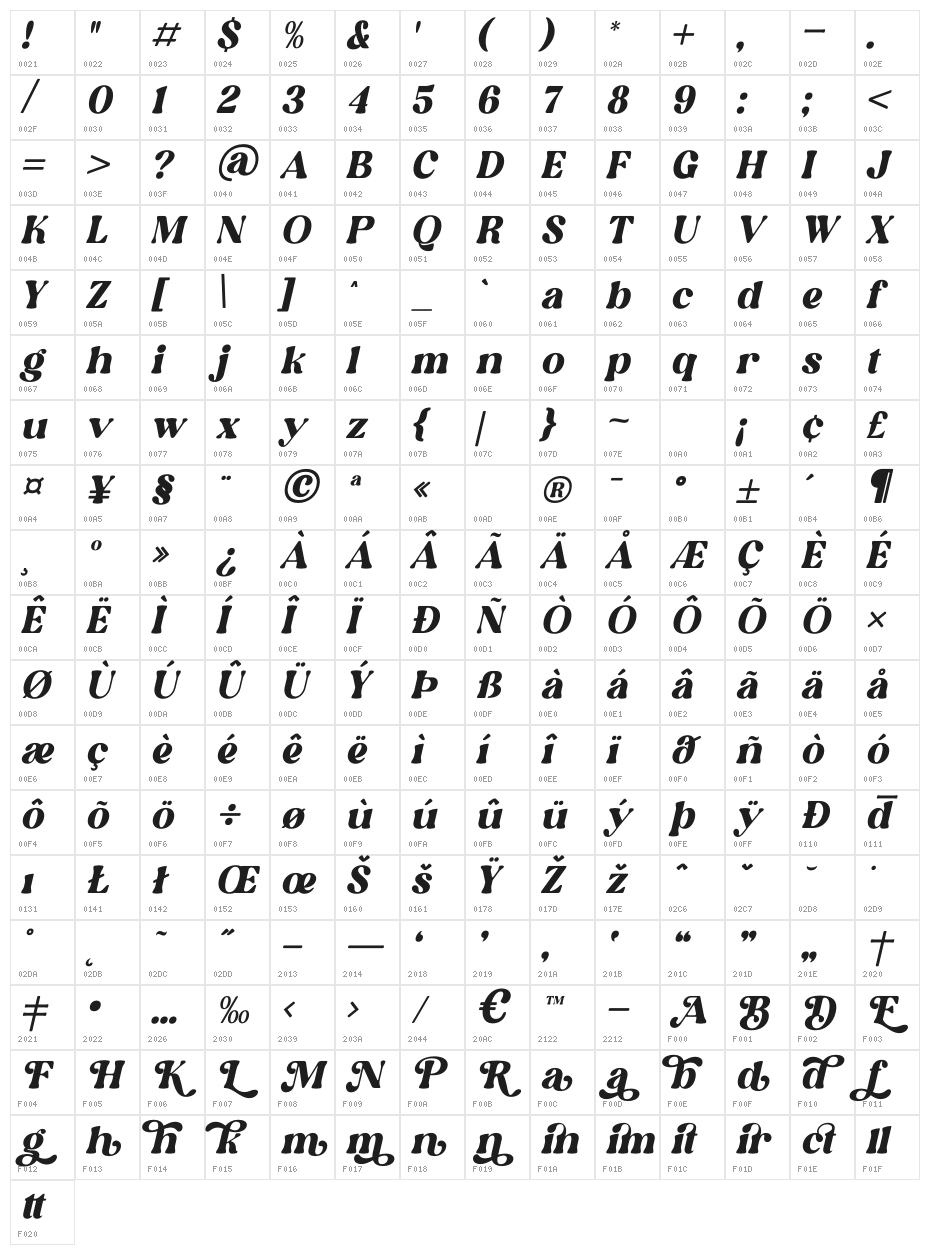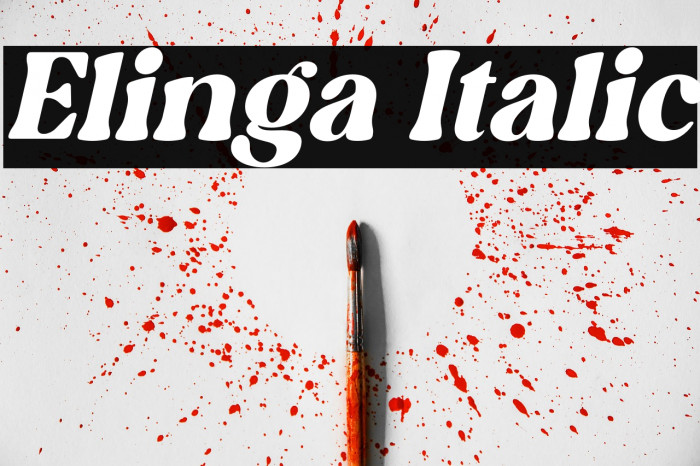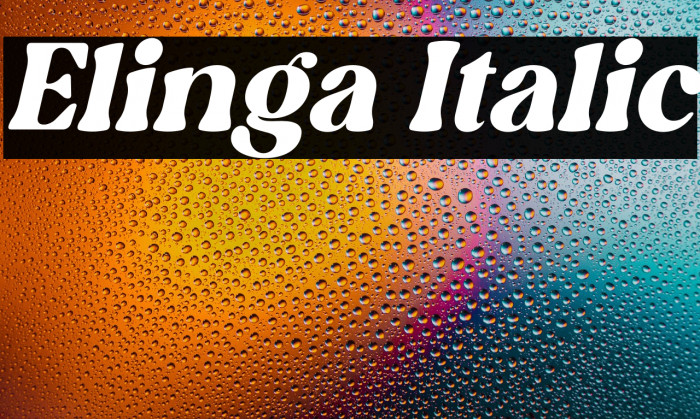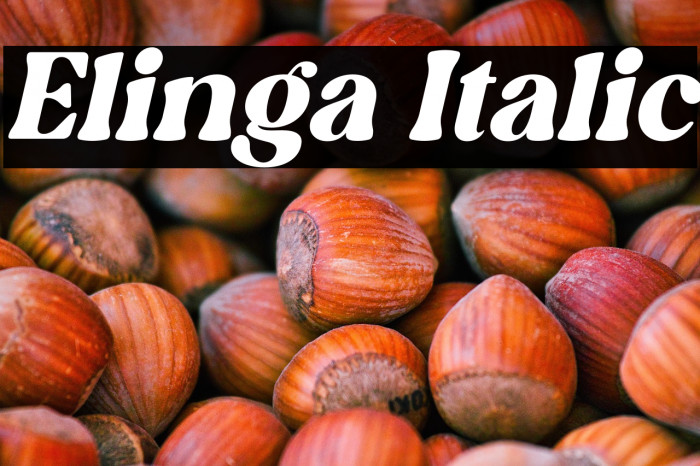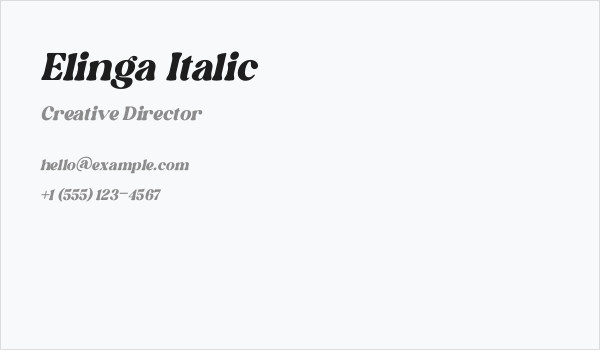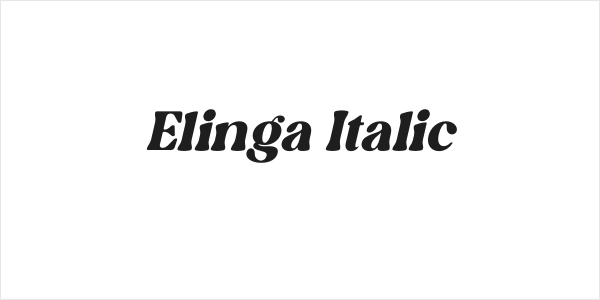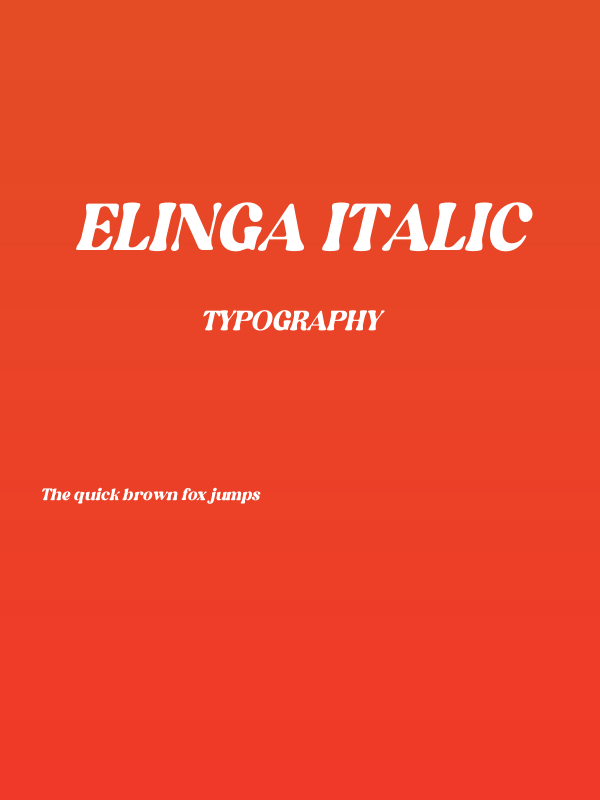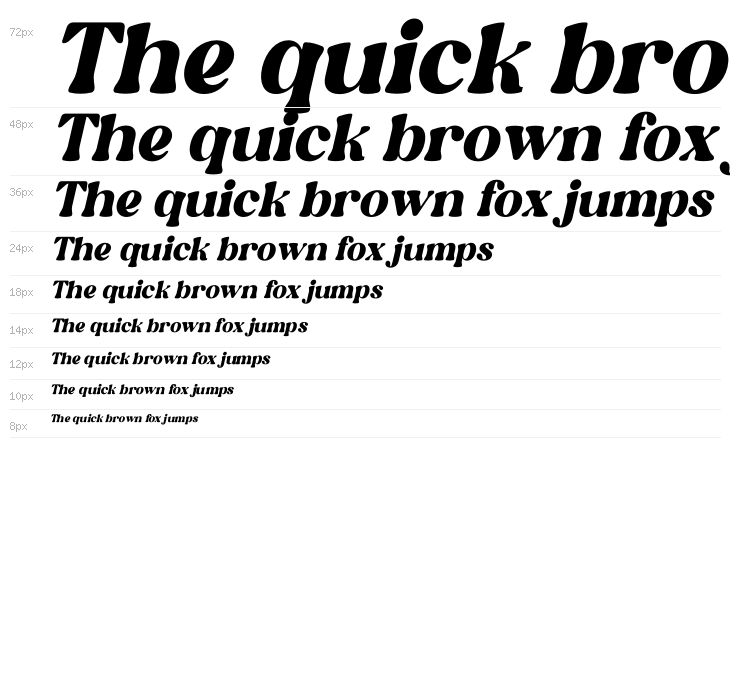
Elinga Italic Font
Elinga Italic Description
This font exudes a bold and dynamic presence with its italicized style, characterized by thick, flowing strokes that create a sense of movement and elegance. The uppercase letters are robust and commanding, while the lowercase letters maintain a consistent flow, enhancing readability. The numerals are equally bold, ensuring they stand out in any context. Special characters are crafted with the same attention to detail, providing a cohesive look across all glyphs. The overall design is both modern and classic, making it versatile for various applications.
| Proposed Projects | Ideal for branding projects, headlines, and editorial design where a strong, elegant presence is required. |